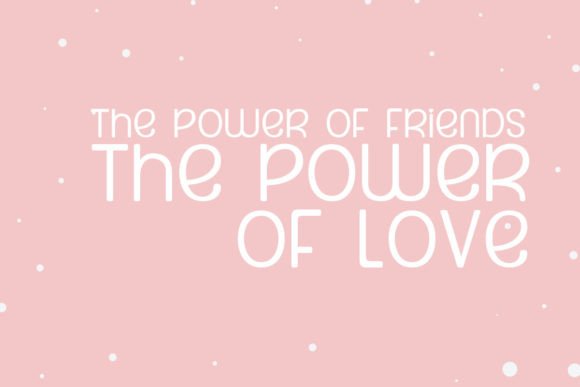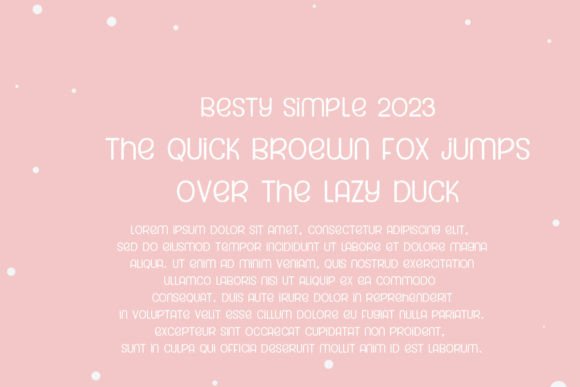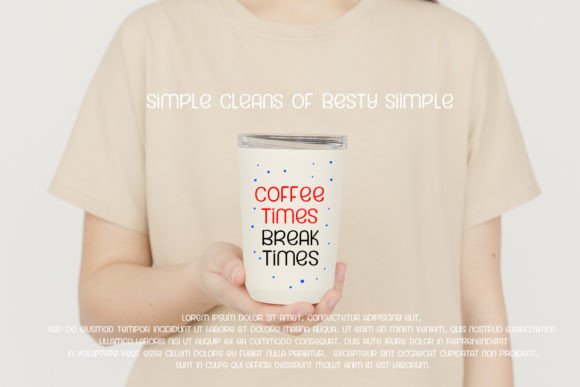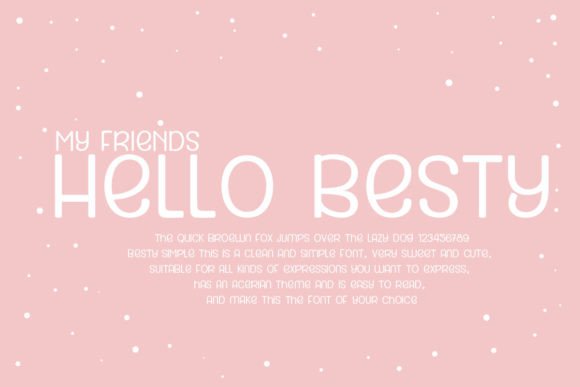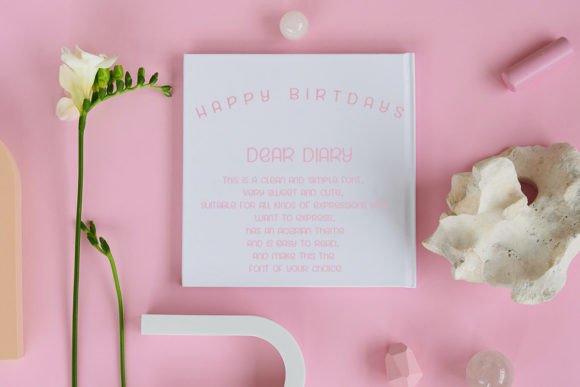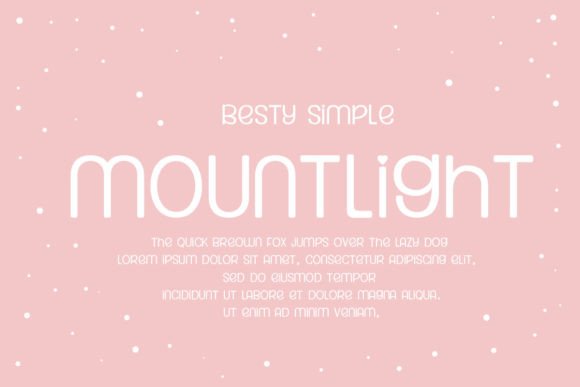
Unlock the Power of Whimsy with Besty Simple Font
Have you ever stumbled upon a design that makes you smile, and you can’t quite put your finger on what makes it so charming? For me, it’s often the perfect combination of typography and whimsy. And that’s exactly what Besty Simple Font brings to the table – a dash of playfulness that elevates any design from ordinary to extraordinary.
Besty Simple Font is a delightful display font that’s designed to be cute, funny, clean, and clear. Its purpose is to add a touch of personality to your designs, making them stand out in a crowded creative landscape. Whether you’re a seasoned designer or a hobbyist, Besty Simple Font is a valuable addition to your toolkit, waiting to bring a smile to your audience’s faces.
Besty Simple Font Key Features
- Font Family: Besty Simple Font is a sans-serif font family designed for clean and modern typography. It is available in multiple weights, from Light to Bold.
- Character Set: Besty Simple Font includes a comprehensive character set, including Latin, Cyrillic, and Greek alphabets, as well as punctuation and symbols.
- Unique Characteristics: The font’s distinctive design features a clean, rounded aesthetic with subtle rounded edges, making it ideal for modern and minimalist designs.
Besty Simple Font Review
First off, I want to say that I was really excited to dive into the Besty Simple Font. I love simple, clean fonts, and this one definitely delivers ✨. The design is minimalist and modern, making it perfect for any project that requires a touch of sophistication. The font is also highly legible, even at smaller sizes, which is a big plus in my book.
Here are some specific things that work well about the Besty Simple Font:
- Highly legible and easy to read
- Modern and minimalist design
- Perfect for a wide range of projects, from corporate to personal
That being said, I do have a few criticisms ⚠️. The font is a bit limited in terms of customization options, which can be a drawback for designers who like to have more control over their typography. Additionally, the font may not be the best choice for projects that require a lot of emphasis or drama.
Overall, I would say that the Besty Simple Font is a solid choice for designers who are looking for a clean and modern font. While it may not be the best choice for every project, it’s definitely worth considering for projects that require a touch of sophistication and elegance.
Besty Simple Font is perfect for creating clean and modern designs in Canva.
Besty Simple Font is ideal for creating professional-looking designs in Adobe Creative Cloud.
Besty Simple Font is perfect for creating clean and professional-looking presentations and documents in PowerPoint and Word.
Besty Simple Font is ideal for:
- Clean and modern designs
- Professional-looking presentations and documents
For optimal results, use Besty Simple Font with a clear and simple design aesthetic.